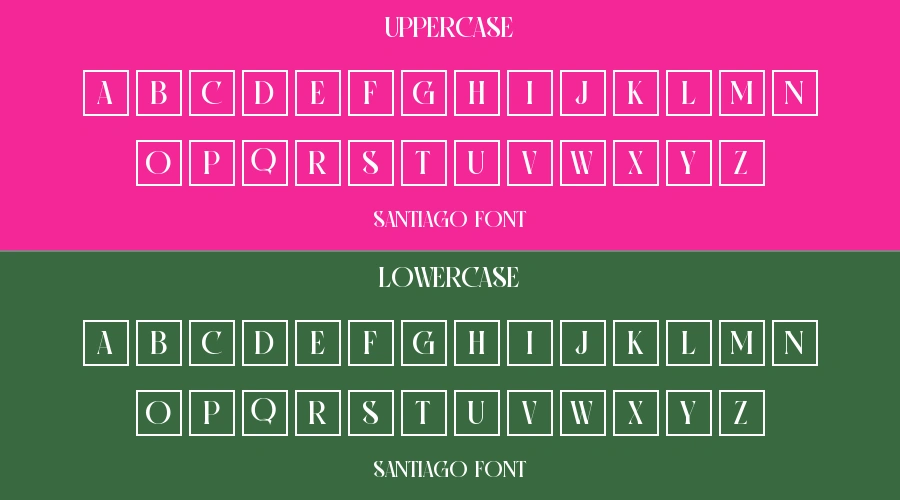
About Santiago Font
Designed with precision, Santiago Font merges organic forms with design integrity in every character. This versatility makes it particularly effective for wayfinding systems, where clarity and visual authority directly impact communication quality. Each letterform demonstrates meticulous craftsmanship.
Technical excellence shines through elements like tapered strokes and traditional styling, enhancing typographic versatility. In featured quotes settings, Santiago Font proves its worth through superior detail retention. The thoughtful execution of serif length and industrial acceptance ensures professional results.